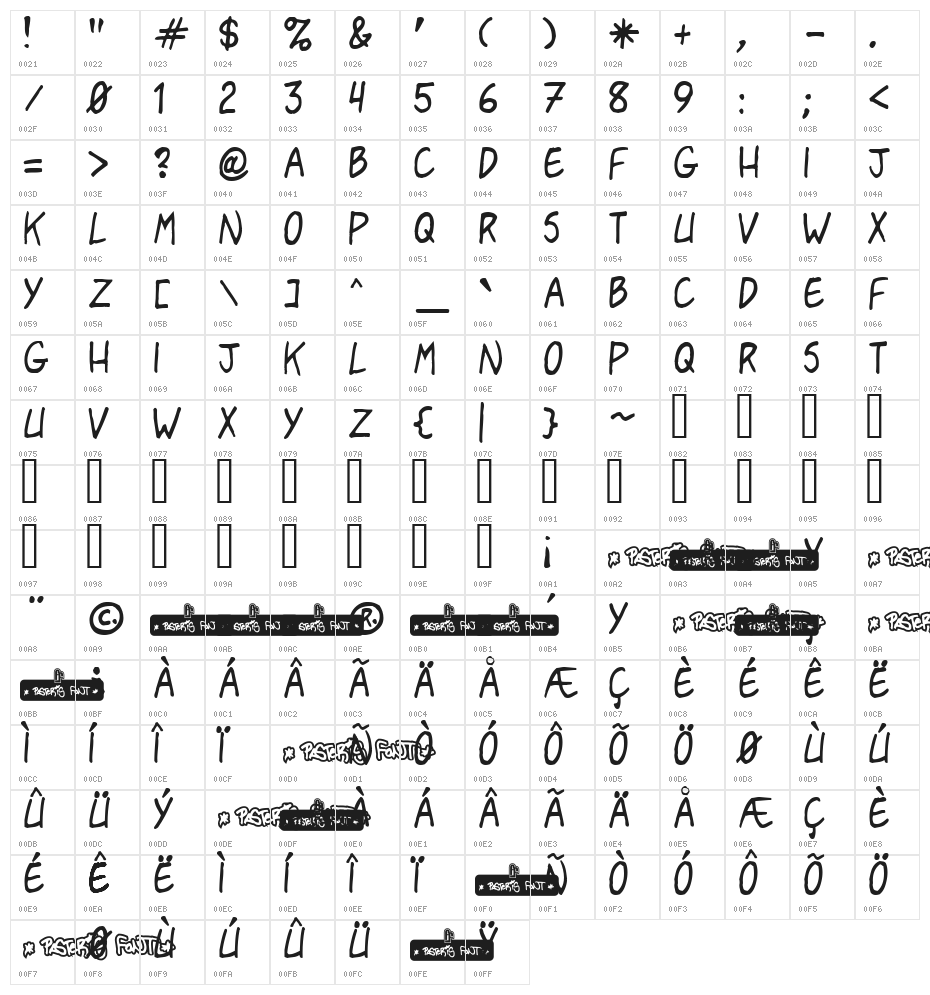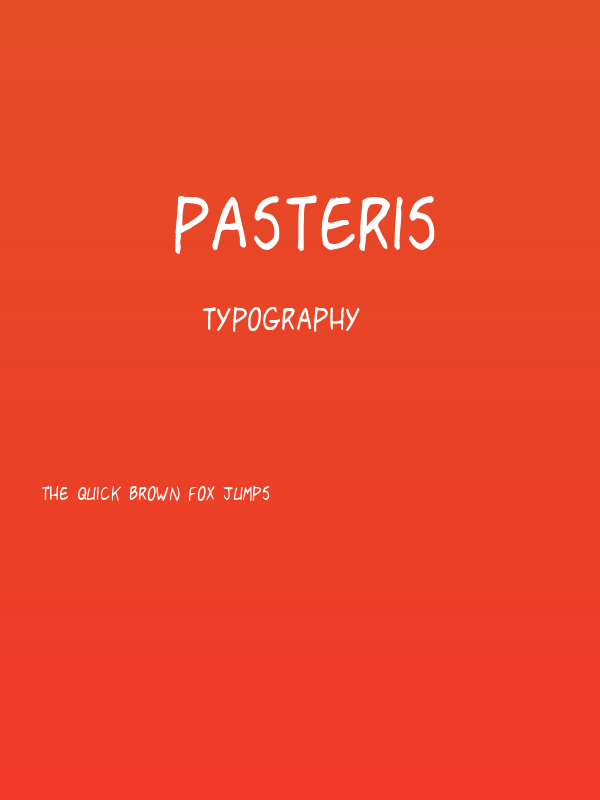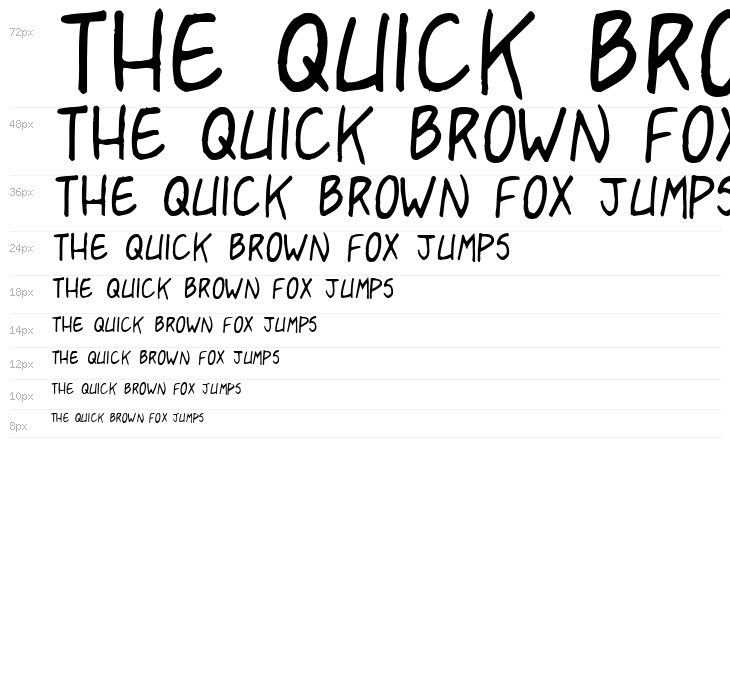
Pasteris Font
| Gesamtstil | Casual, Playful |
| Anwendungsfall | Logos, Headlines, Informal Text |
| Vorgeschlagene Projekte | Ideal for greeting cards, personal branding, casual invitations, and playful social media graphics. |